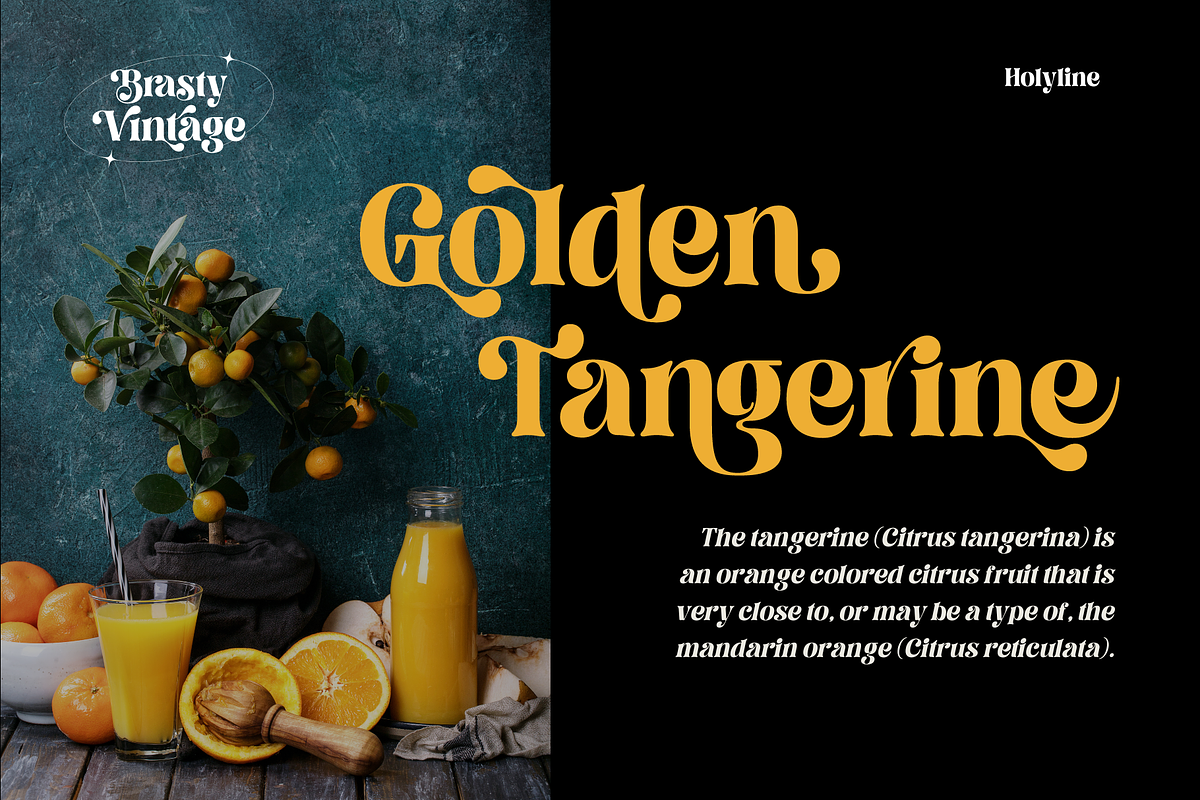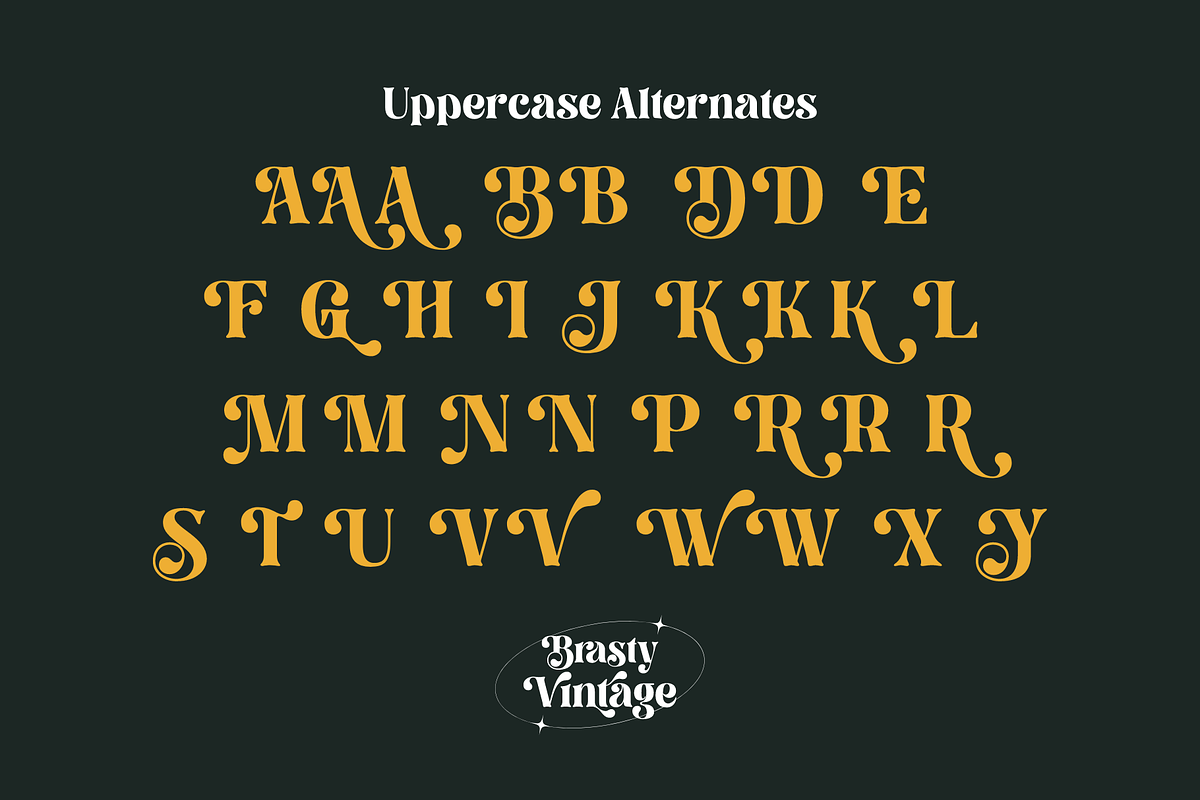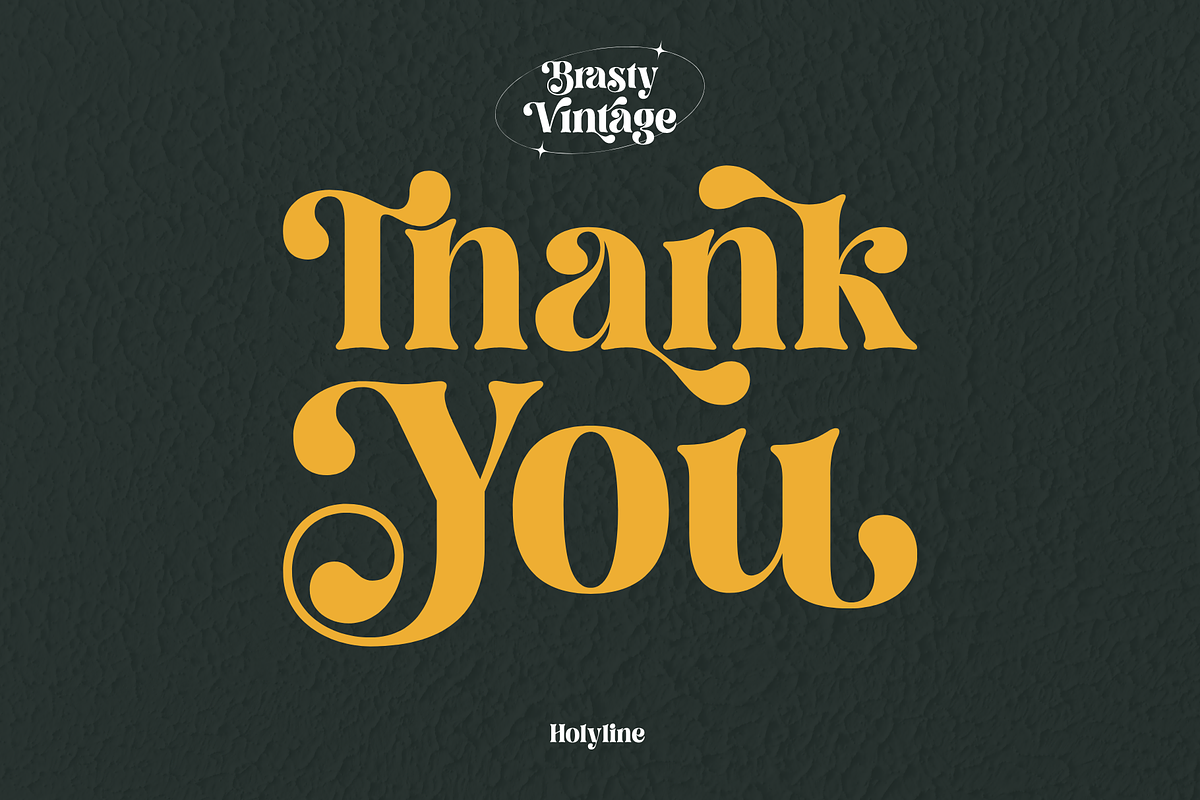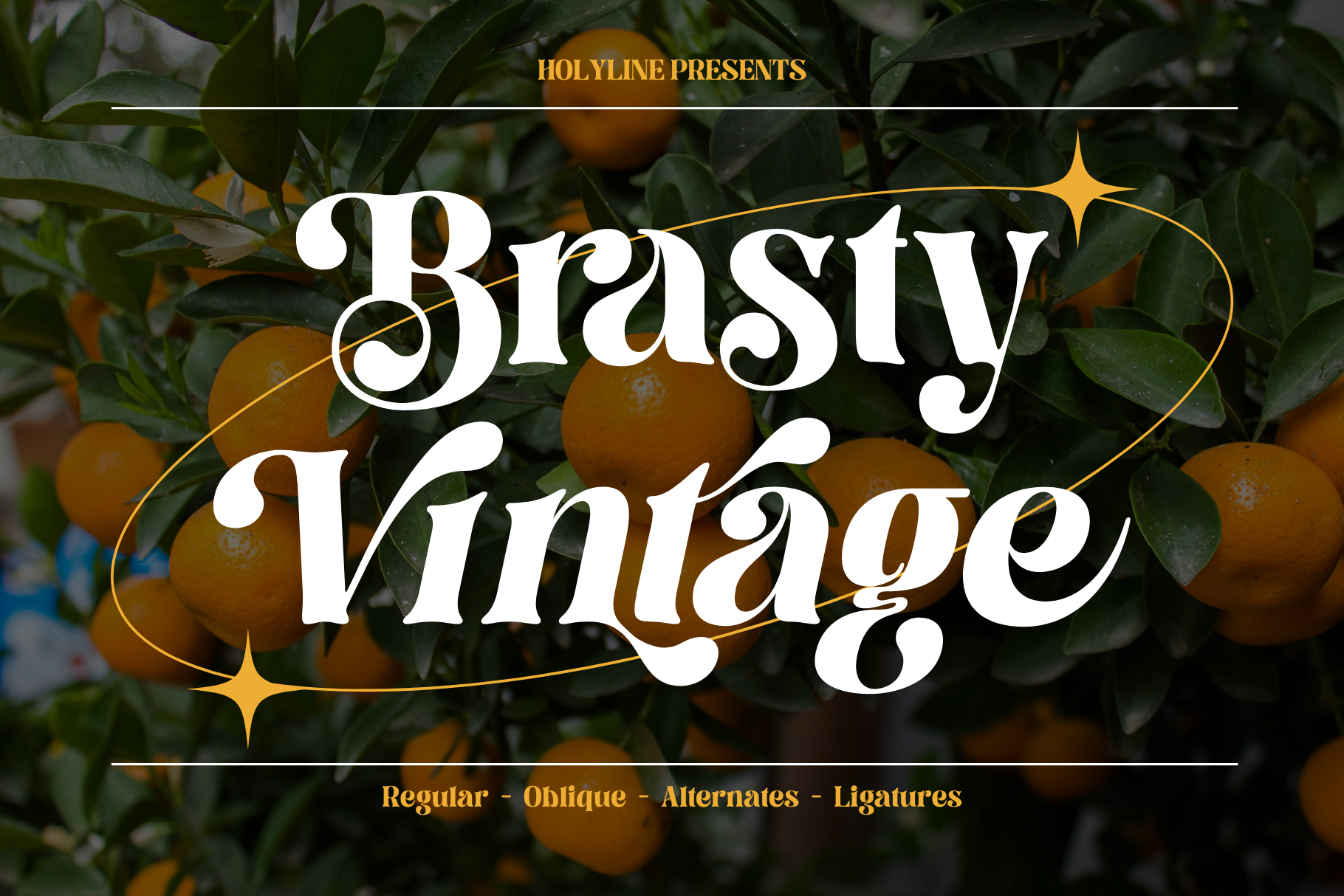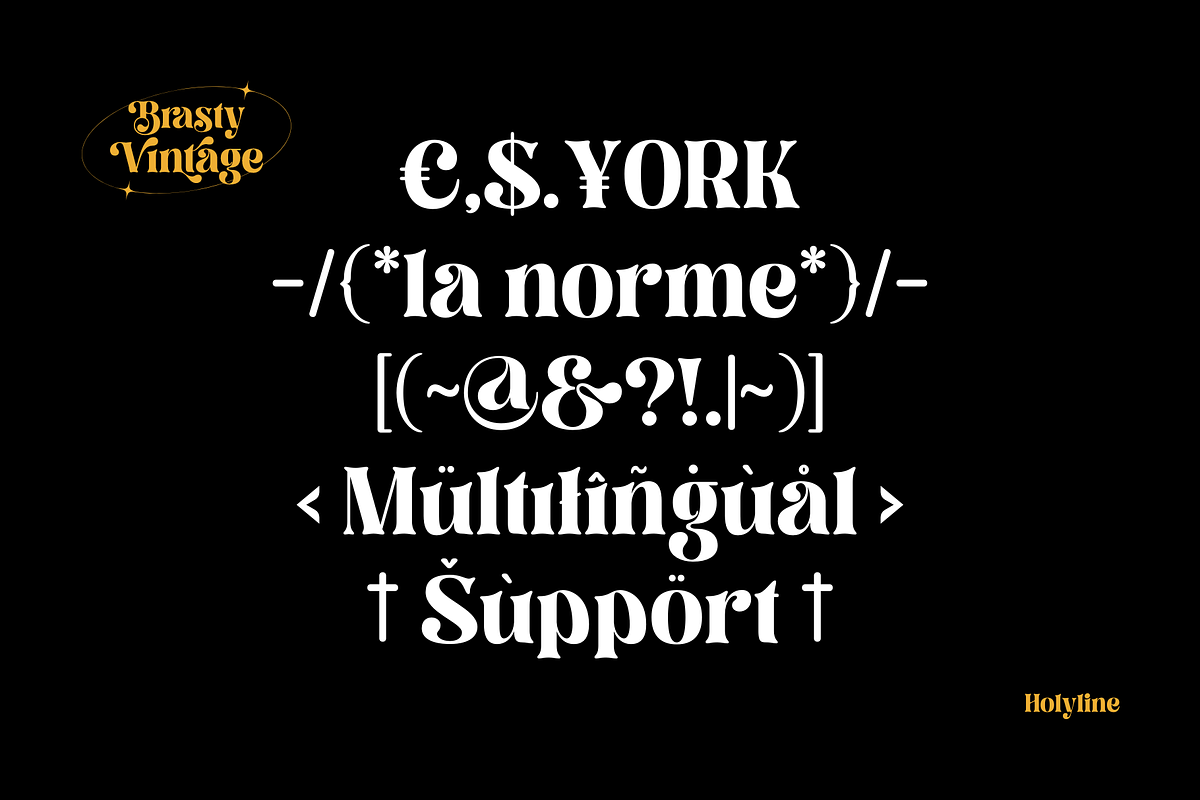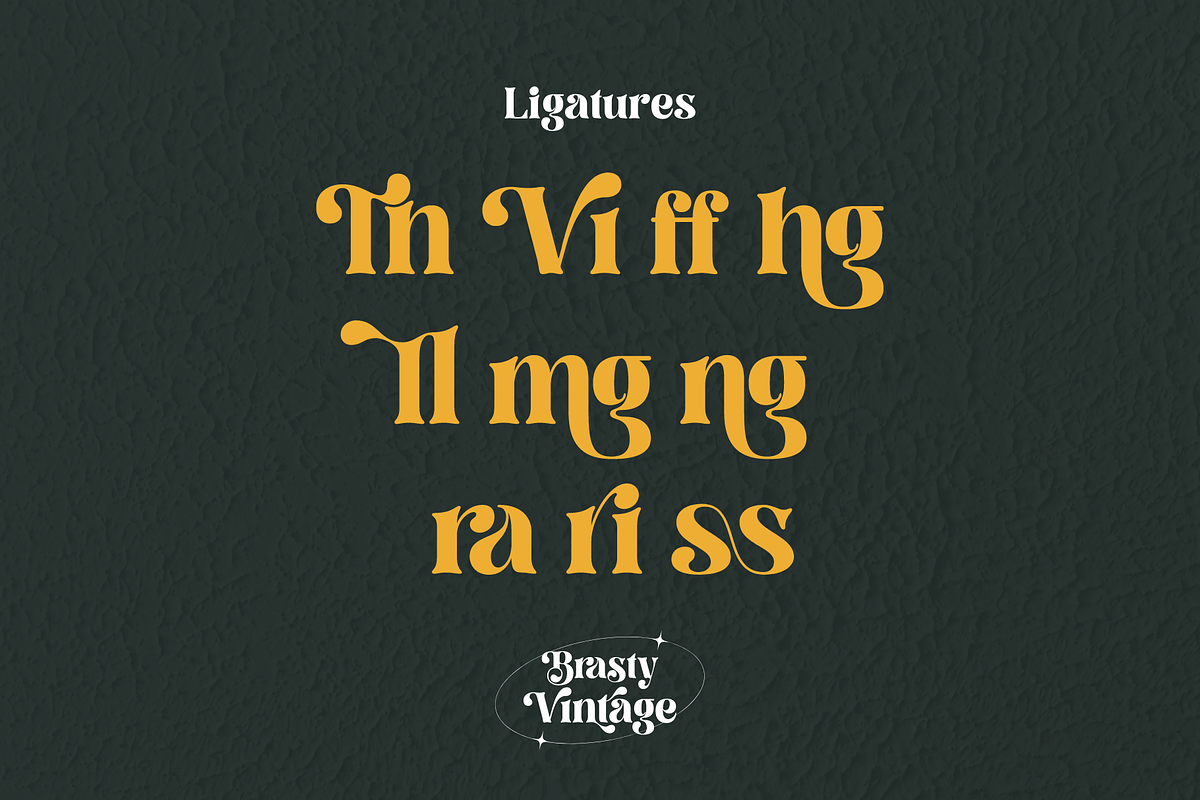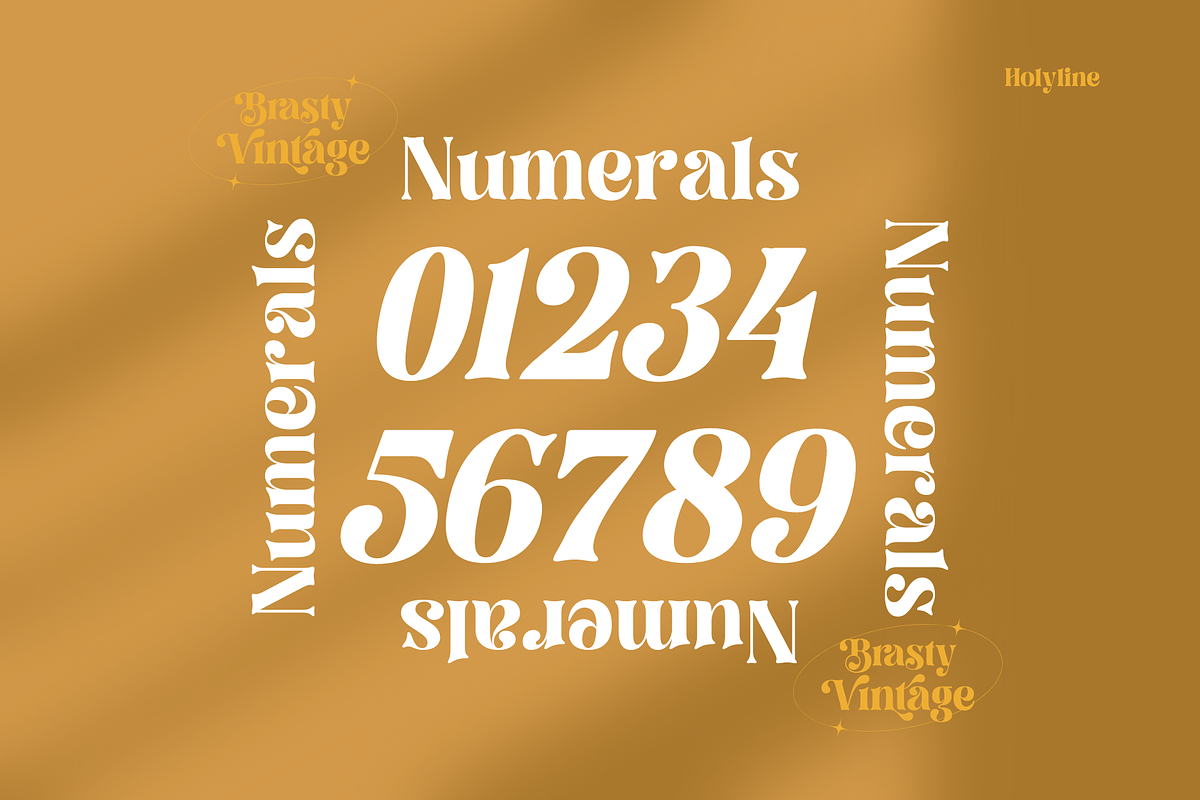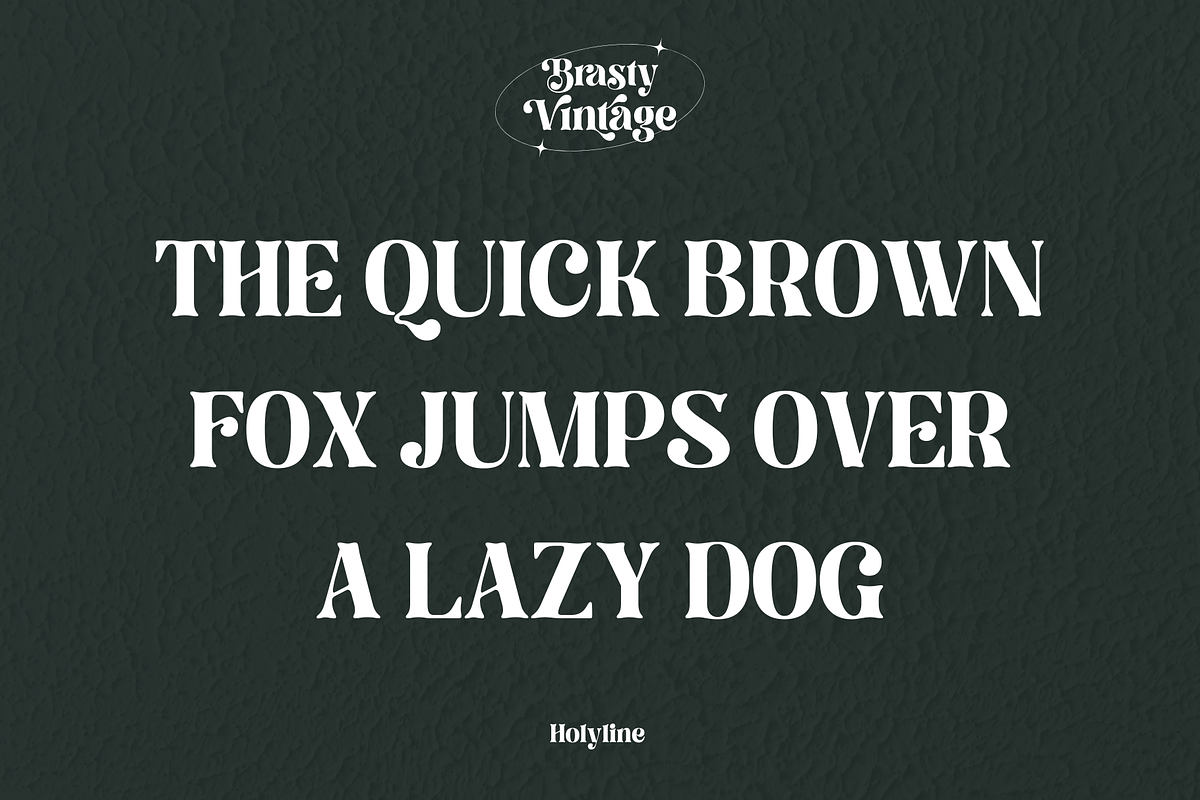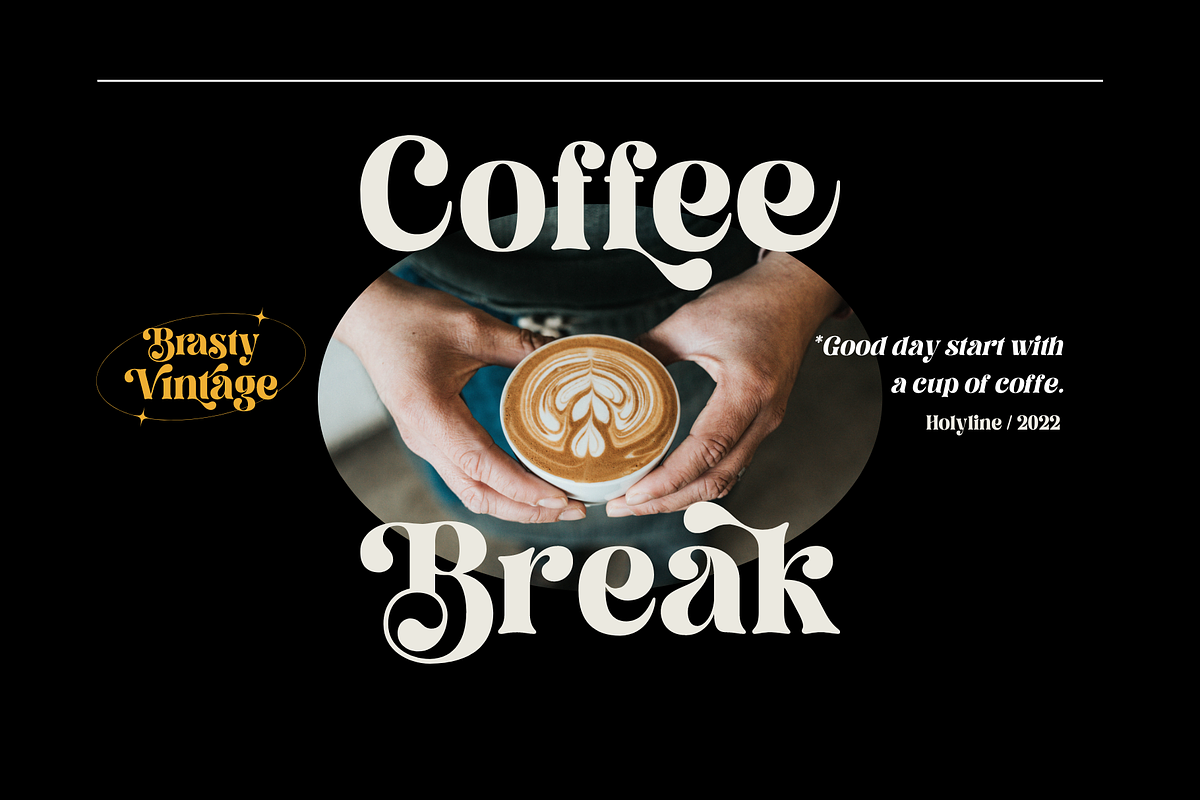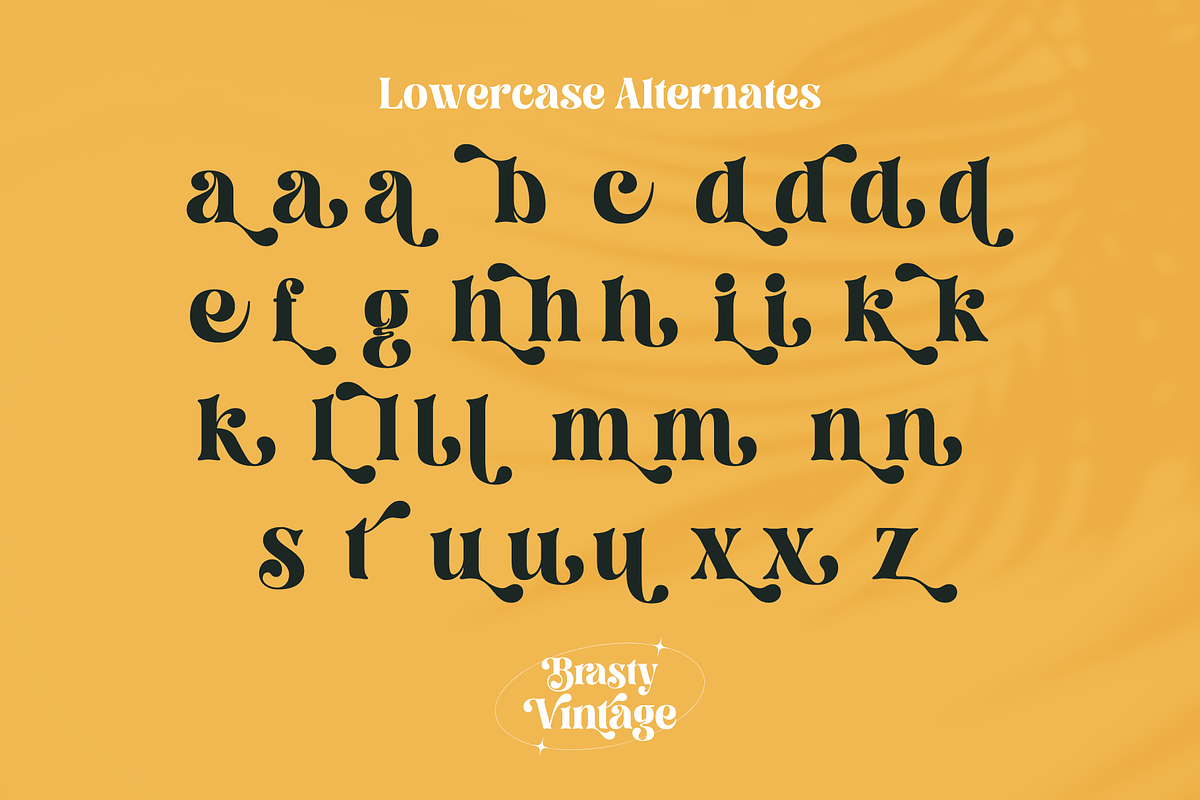
Brasty Vintage - Retro Serif Font
Brasty Vintage by Holyline is a Retro serif typeface with reguler and oblique style . It's very unique, fancy, bold and with 50+ alternates that you can combine to get perfect and beautiful shapes easily to use. Brasty Vintage perfect for headline, custom logo,packaging, wedding designs, invitations, watermark,social media posts, label, anything for your creativity and Brasty Vintage is perfect typeface if you want something new with your project. Happy creating!